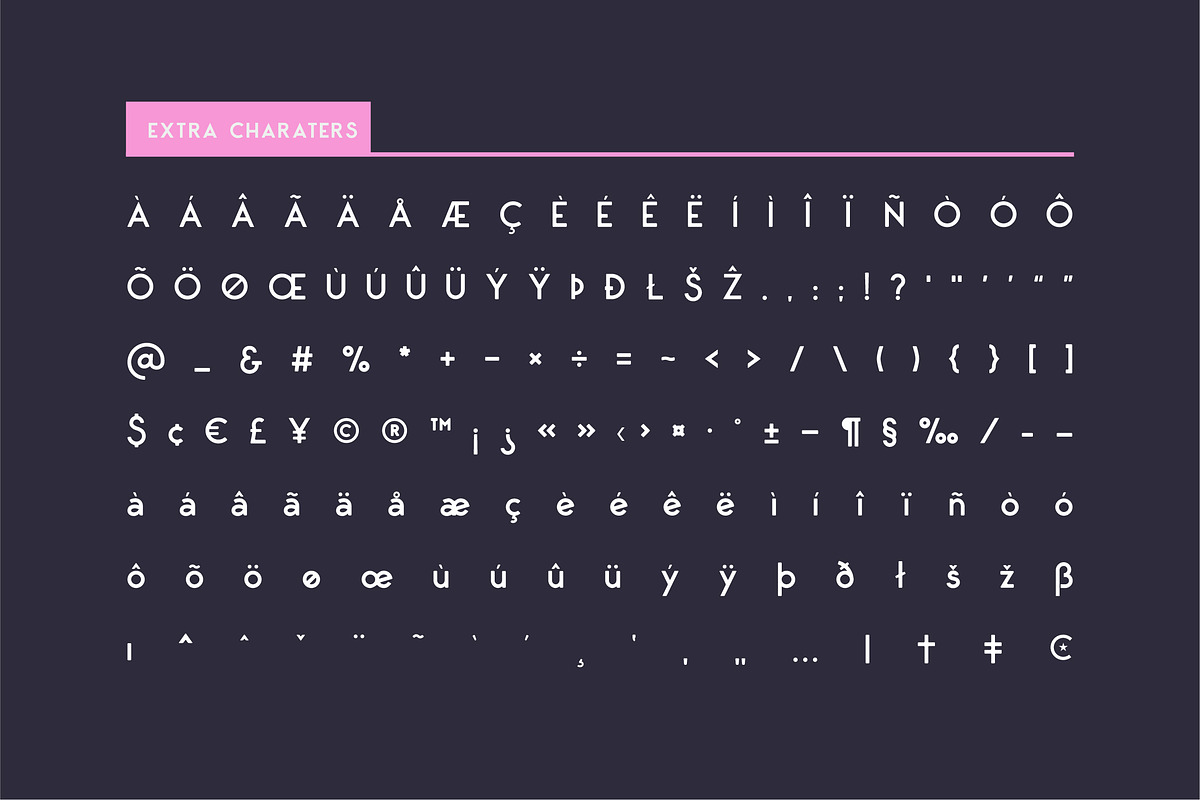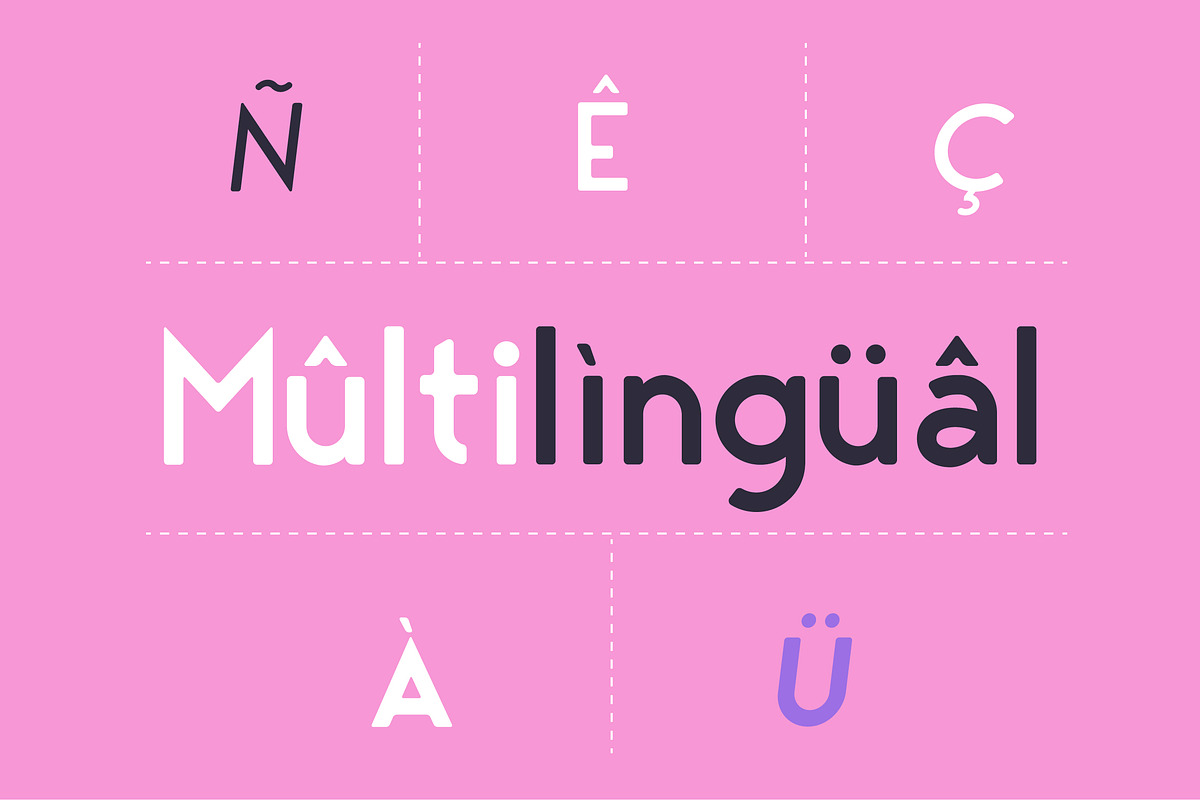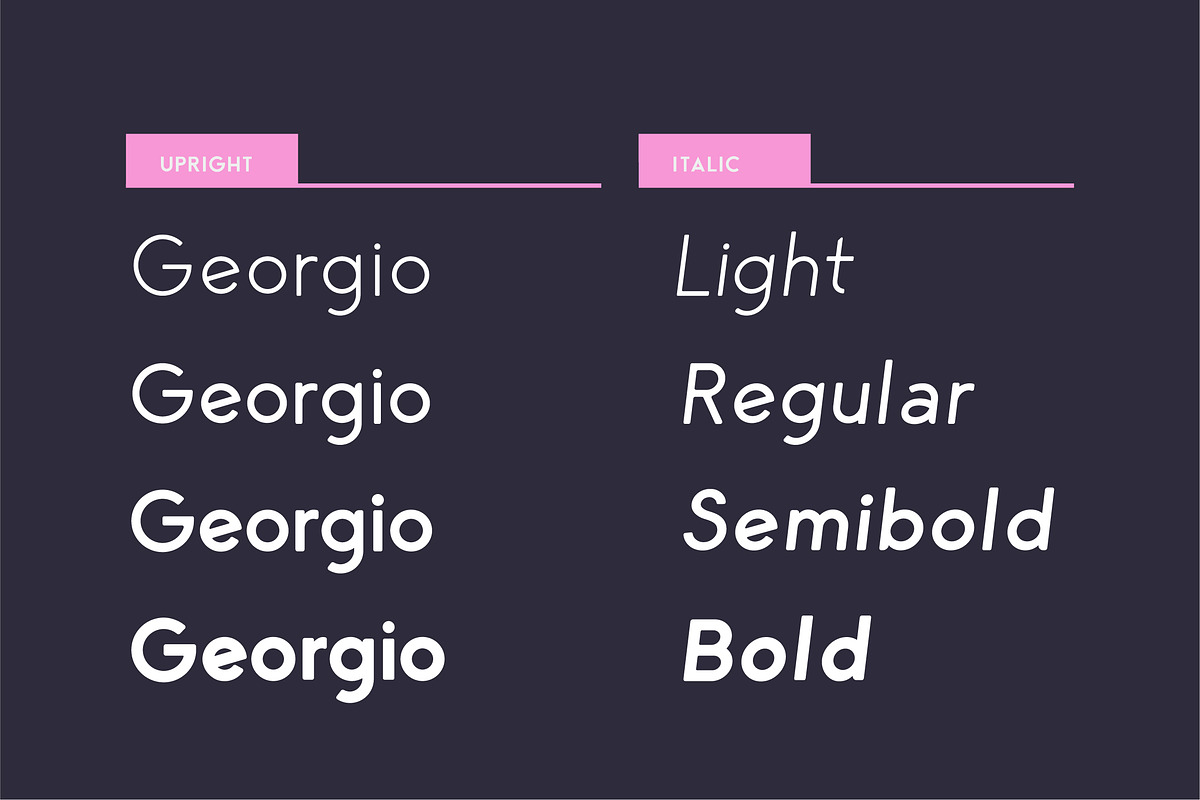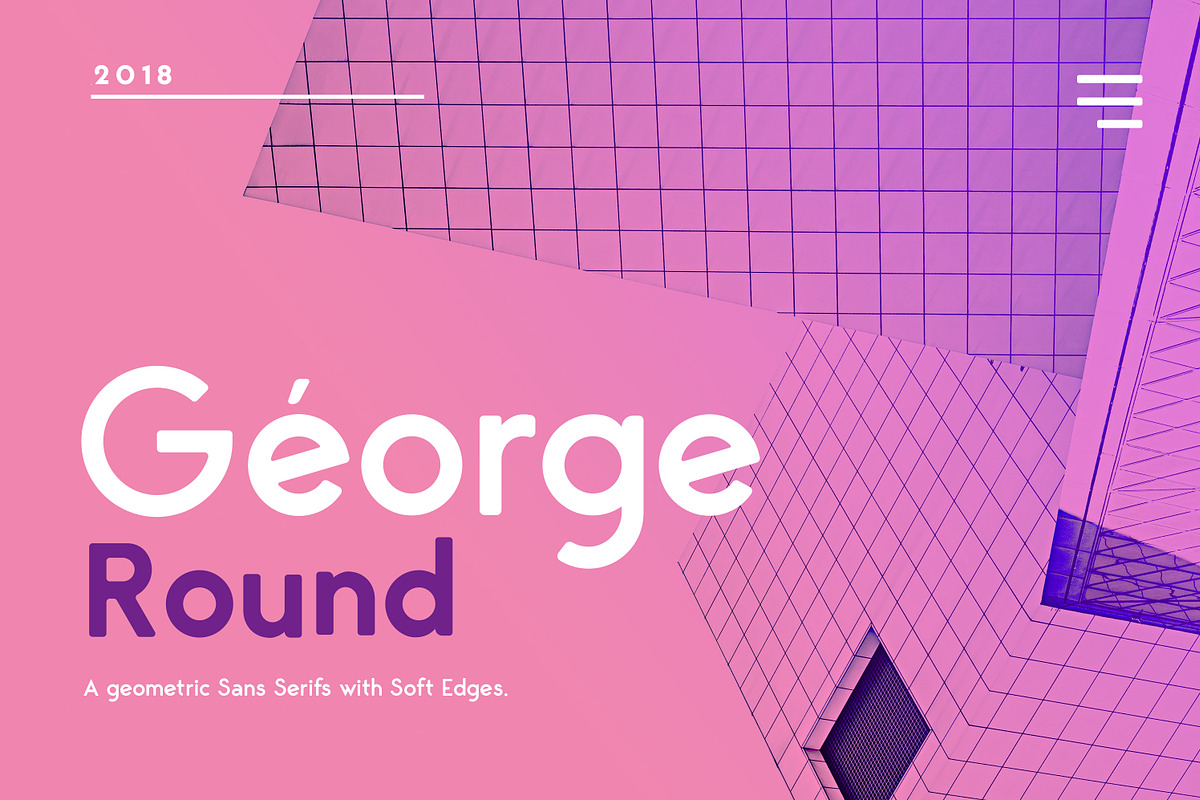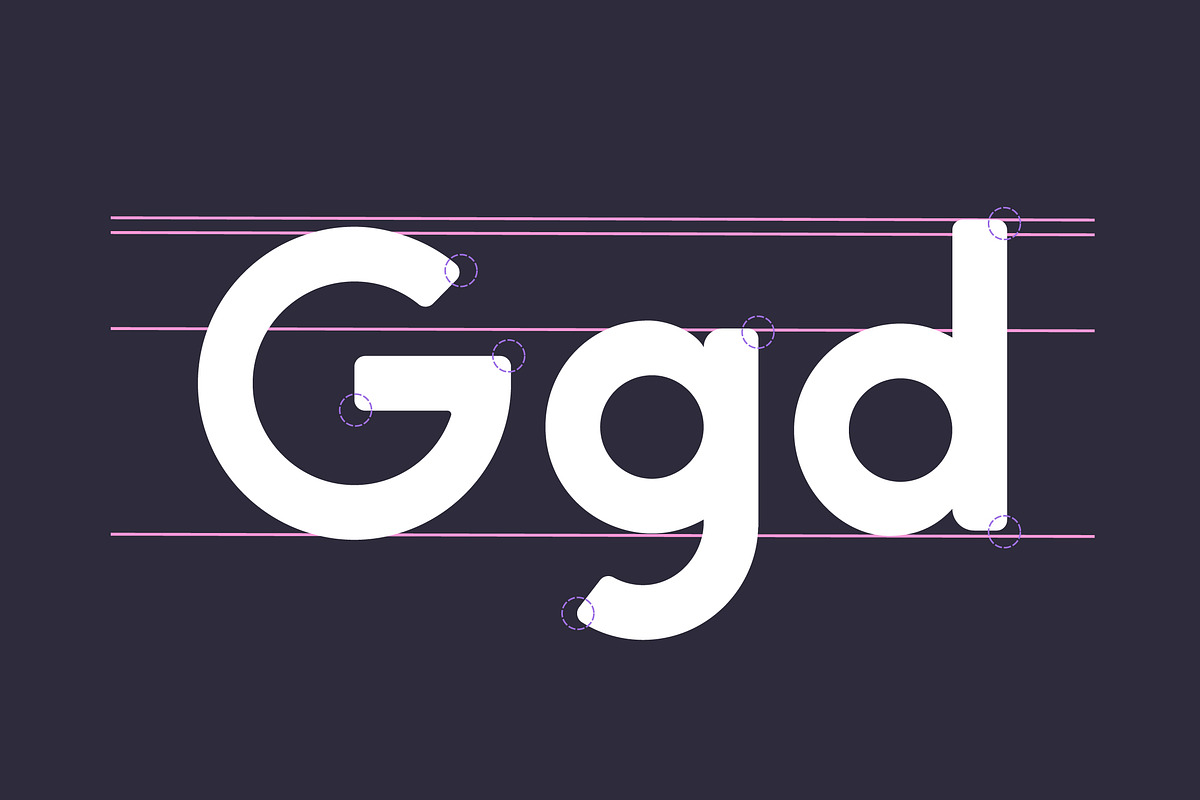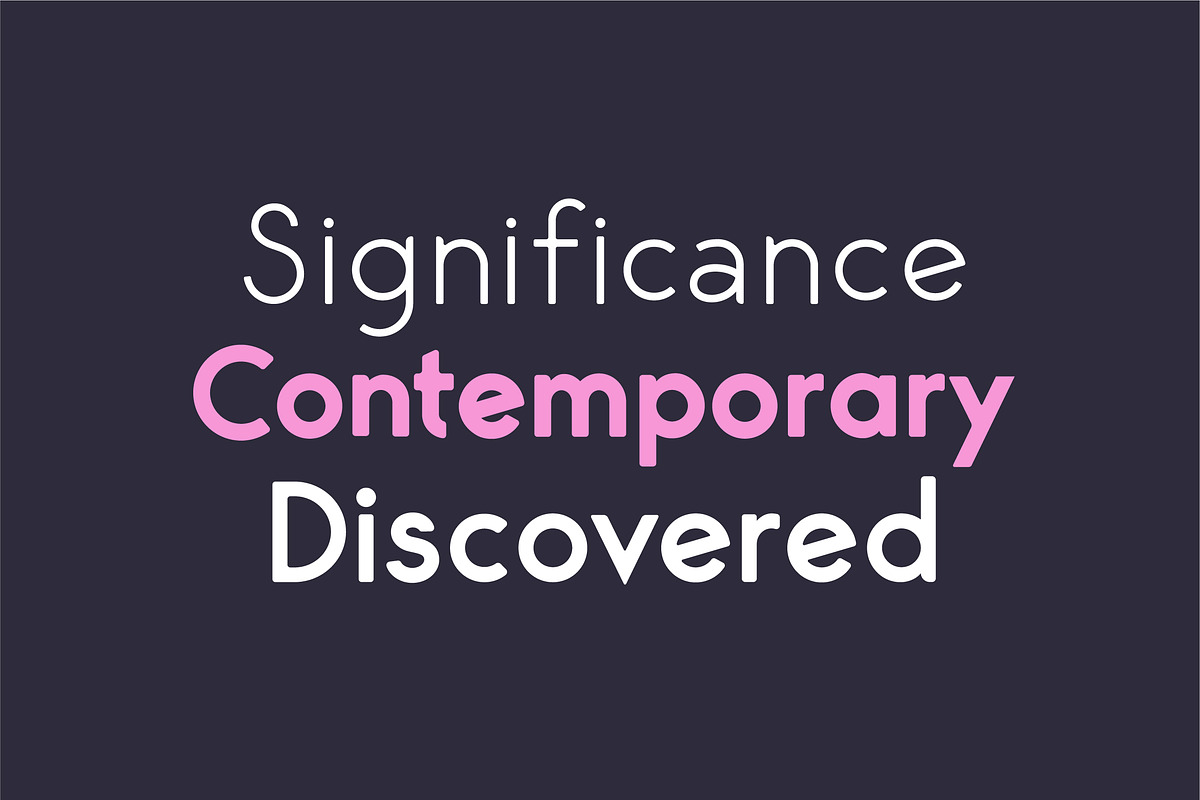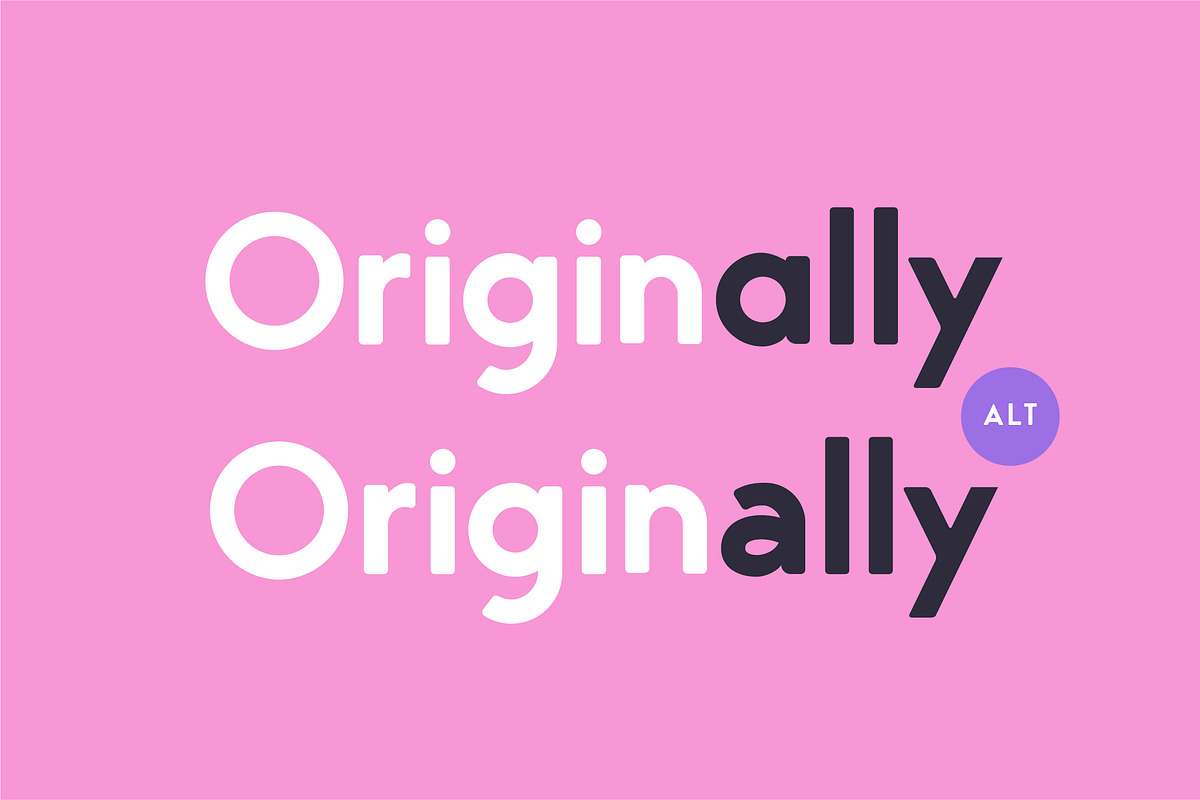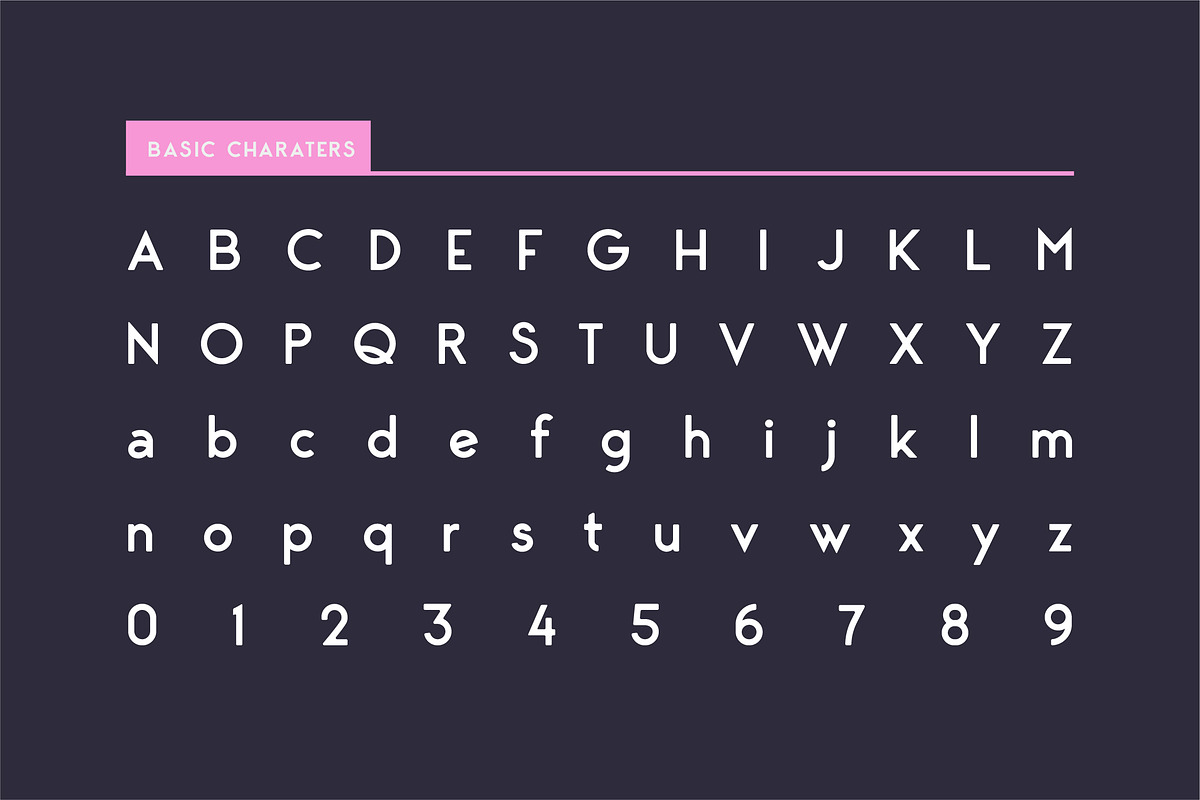
George Round Typeface
George Round v1.5 is an Elegant contemporary sans serif font family of 8 fonts with Soft edges,. Designed with clean and stylized modern European geometry with harmonious appearance for both texts and headlines. George Round is perfect companion for branding, editorial and signage, also works great for bigger applications. George Round also includes many language support.
Capital + Lowercase letters
Numbers + Punctuation
8 weights [ Light, Light Italic, Regular, Italic, Semi Bold, Semi Bold Italic, Bold, Bold Italic]
Multiple Language supported